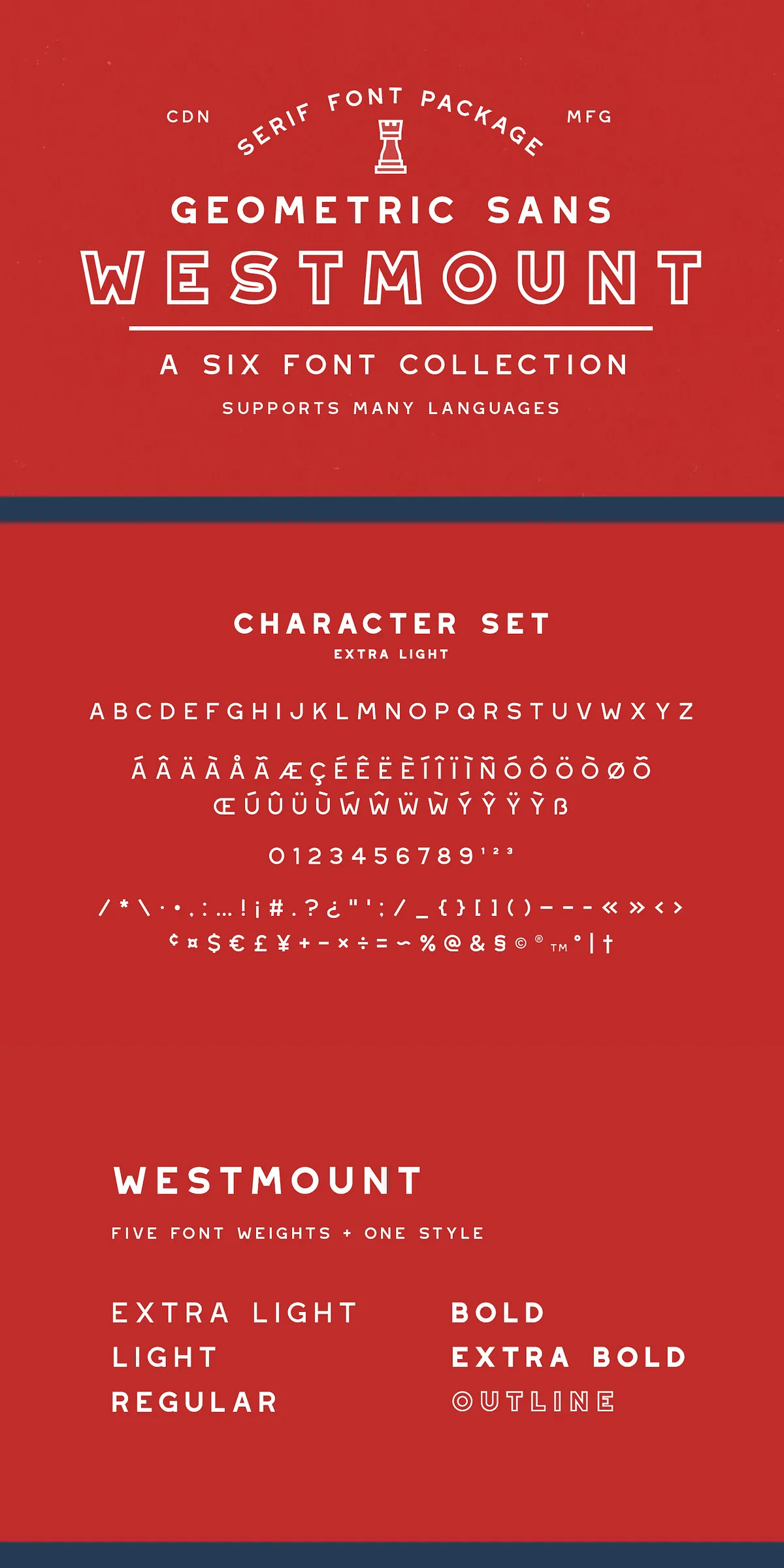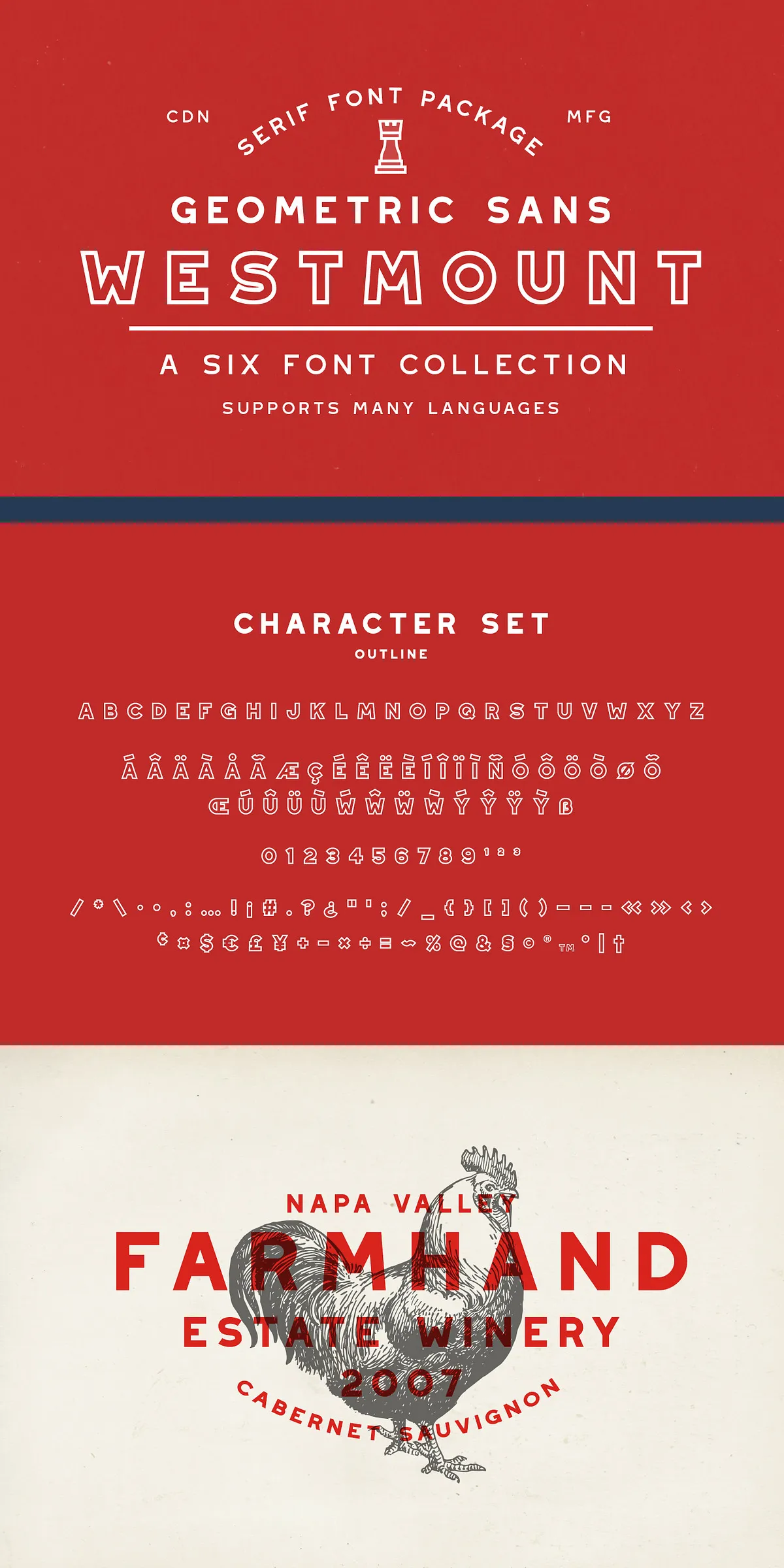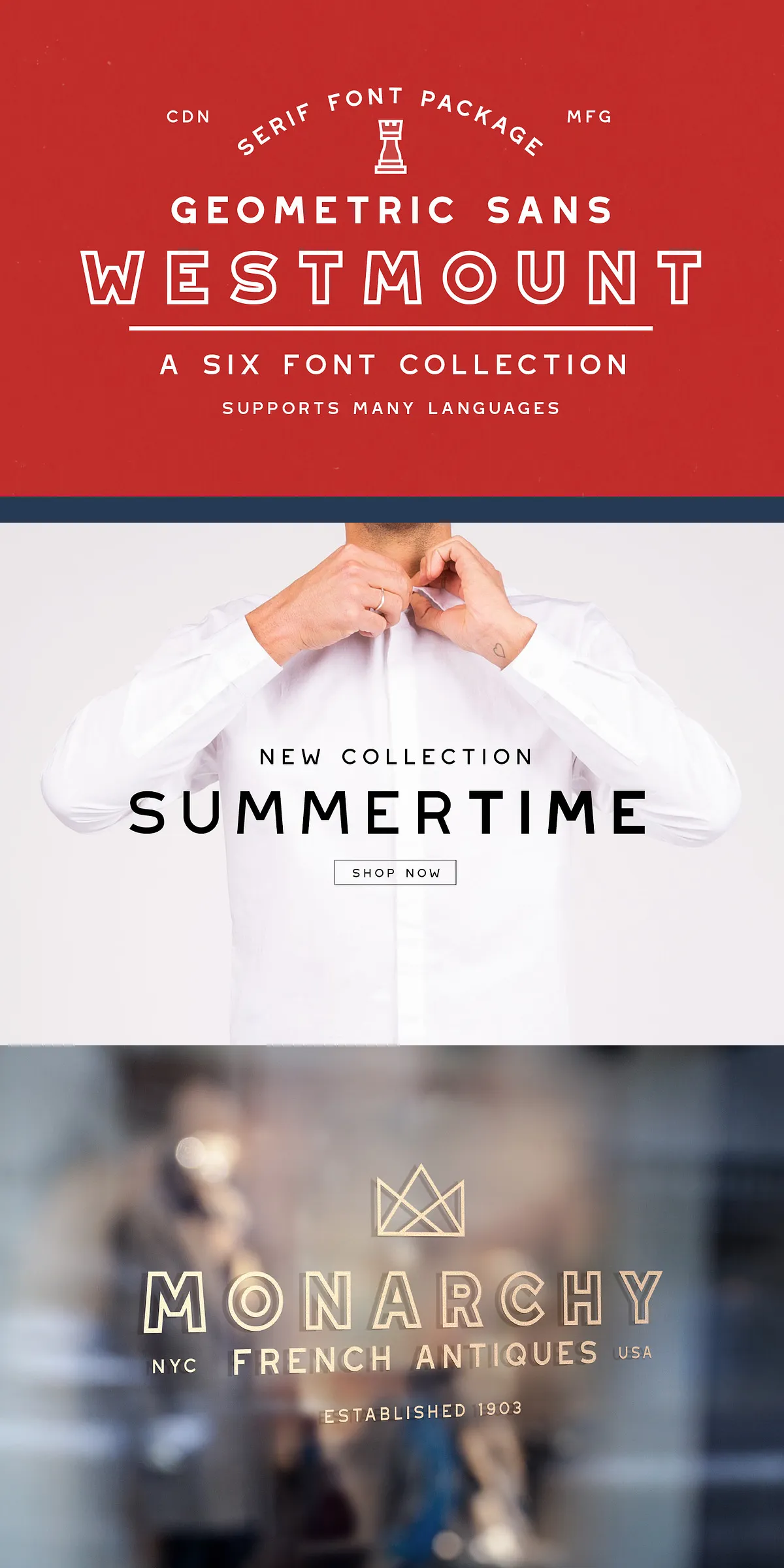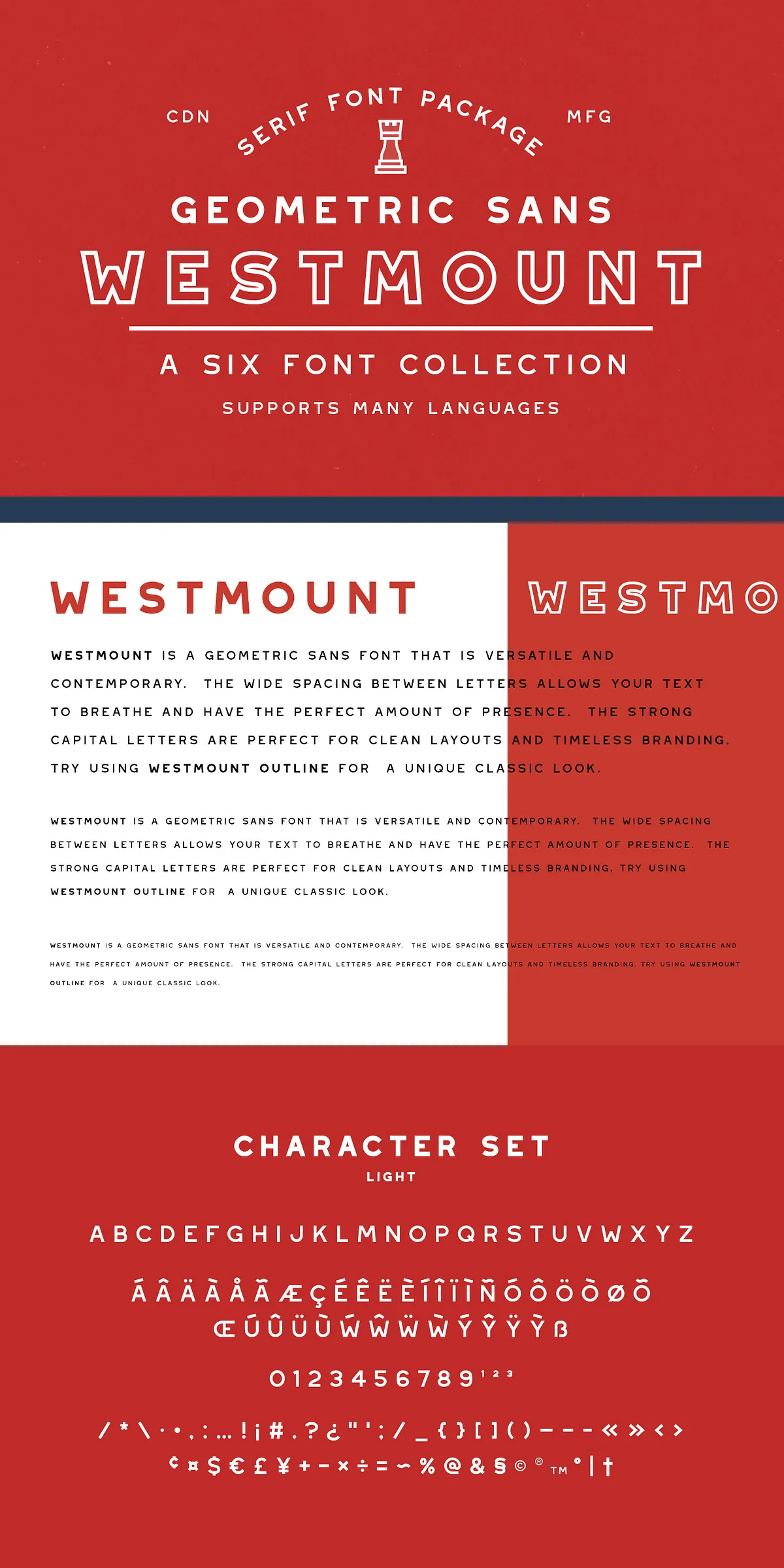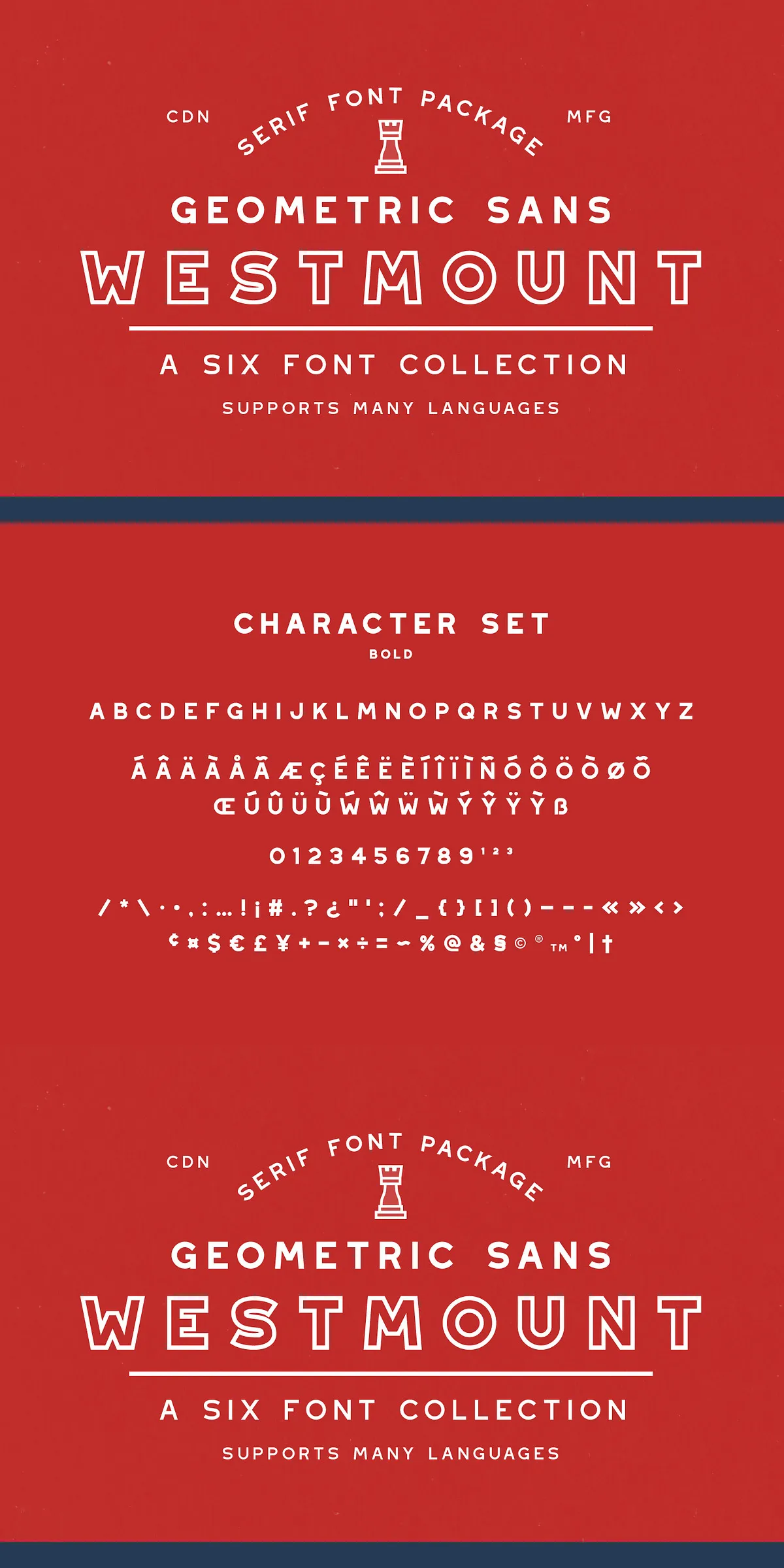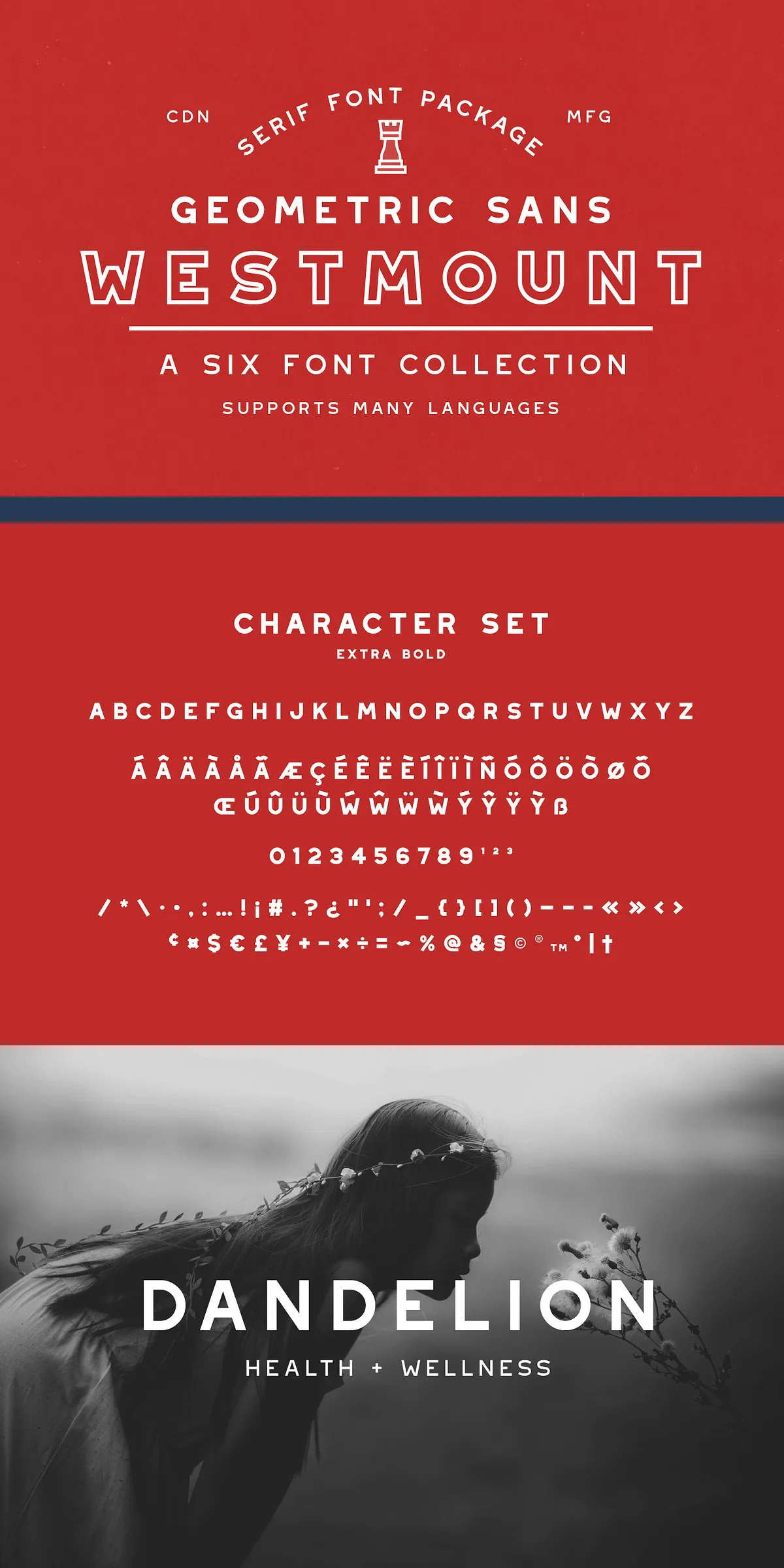
Westmount – 6 Sans Serif Fonts
Meet Westmount — a bold yet refined geometric sans-serif typeface engineered for clarity, presence, and enduring elegance. With its intentionally generous letter spacing, Westmount gives your text the breathing room it deserves. This isn’t just visual comfort — it’s strategic design. Each character stands clearly on its own, creating a layout that feels open, balanced, and effortlessly readable, even at large sizes.
Whether you’re crafting a minimalist logo, designing a premium brochure, or building a sleek website header, Westmount’s wide spacing ensures that your message doesn’t shout — it speaks with confidence and calm precision.
6 Distinct Styles for Every Design Need
Westmount isn’t just one font; it’s a full family of six meticulously crafted styles, each designed to serve a unique creative role:
• Westmount Extra Light – Perfect for subtle backgrounds, elegant subheadings, or lightweight text that needs to be seen but not overpower.
• Westmount Light – A refined choice for modern UI text, branding tags, or subtle section headers with a touch of sophistication.
• Westmount Regular – The versatile workhorse. Ideal for body copy, captions, and clean design layouts where clarity is key.
• Westmount Bold – Step into the spotlight. Ideal for impactful headlines, signage, or branding that demands attention.
• Westmount Extra Bold – Command the stage. Use across posters, banners, or product packaging where maximum visual impact is required.
• Westmount Outline – Add drama and depth. This unique style delivers a classic, engraved look — perfect for vintage designs, artistic logos, or standout typographic artwork.
Designed for Global Use, Built for Real-World Projects
Westmount isn’t just beautiful — it’s built to work across borders. With over 200 glyphs per font, it includes extensive language support, covering Latin, Cyrillic, and Greek scripts. This means your designs can speak to a worldwide audience without compromise — whether you’re targeting Europe, Russia, or the Balkans.
The inclusion of accented characters, ligatures, punctuation, and numbers ensures your text stays professional, even in multilingual campaigns or international branding projects.
Why Westmount is a Must-Have in Your Design Arsenal
In a world of fleeting design trends, Westmount stands apart. It’s not chasing noise — it’s creating calm. Not chasing gimmicks — it’s building legacy. This is the font for designers who value:
• Timeless quality — A look that never goes out of style
• Clear communication — Where every letter says what it means, simply and powerfully
• Design flexibility — From delicate to bold, soft to sharp, Westmount adapts
• Professional polish — Trusted by brands who want to feel substantial, not flashy
Westmount isn’t just a font — it’s a mindset. A commitment to balance, clarity, and long-term impact. It’s for creators who believe great design doesn’t need to shout to be noticed.